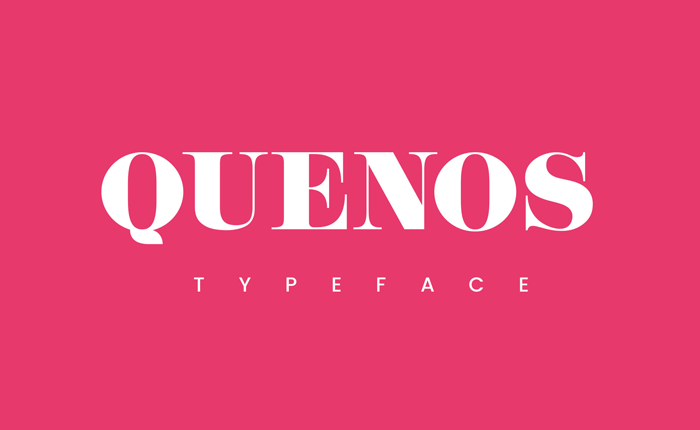
Quenos Typeface
To design a professional font, it takes a lot of time and effort. Befonts will help you do that, will introduce you the best typography. Focus on your core tasks. Introducing Quenos Typeface! Quenos designed and shared by Wassim Awadallah. It is suitable for any design needs, branding, cover title, t-shirts, posters and more.  It contains letters, numbers and glyphs.